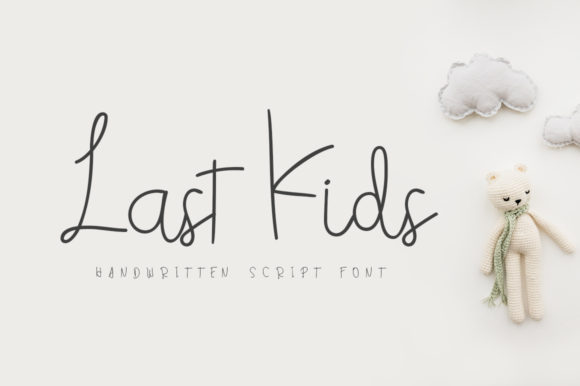
Dive into the realm of whimsical creativity with Last Kids Font, a script font that captures the essence of childhood dreams and boundless imagination. Inspired by the charming strokes of young artists, Last Kids Font introduces a world where every letter dances with individuality and exuberance. Its playful curves and energetic lines ignite a sense of nostalgia, transporting you back to the carefree days of crayon-filled drawings and boundless creativity.
With Last Kids Font, transform your designs into captivating visual masterpieces that resonate with audiences of all ages. Whether you're crafting playful invitations, designing vibrant social media graphics, or creating eye-catching logos, this font is your magic wand to unleash your imagination and leave a lasting impression.
Beyond its aesthetic appeal, Last Kids Font is a versatile workhorse, adapting seamlessly to a myriad of design projects. Its friendly and approachable nature makes it an ideal choice for educational materials, children's books, and projects aimed at capturing the attention of young minds. Its ability to evoke a sense of nostalgia and innocence also lends itself beautifully to vintage-inspired designs, retro branding, and heartfelt personal projects.
Unlock the boundless possibilities of Last Kids Font and elevate your designs to new heights of charm and whimsy. Join the ranks of creative visionaries who have embraced this font's unique allure, crafting captivating designs that speak to the child within us all. Let Last Kids Font be your creative companion, guiding you on an artistic journey where imagination reigns supreme and every design tells a story.